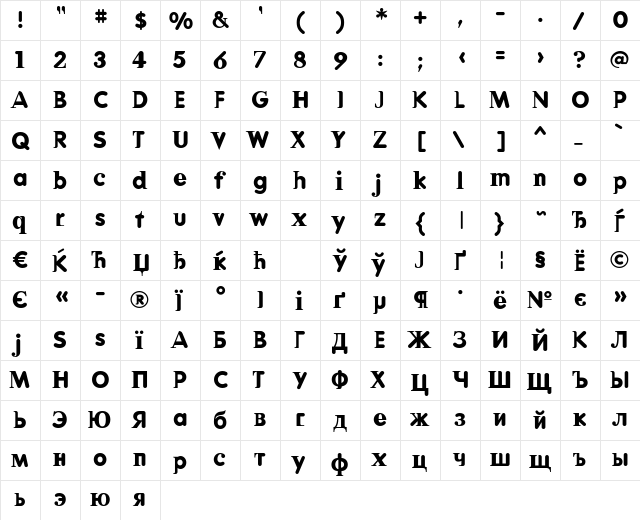
DeadHistoryCTTBold Regular
| Designer | P. Scott Makela, Igor Polovodov. |
Design Context for DeadHistoryCTTBold Typeface
DeadHistoryCTTBold offers clean, dependable letterforms without strong stylistic allegiance, making it a practical choice for designers who need flexibility. The heavy weight commands attention and anchors typographic hierarchies.